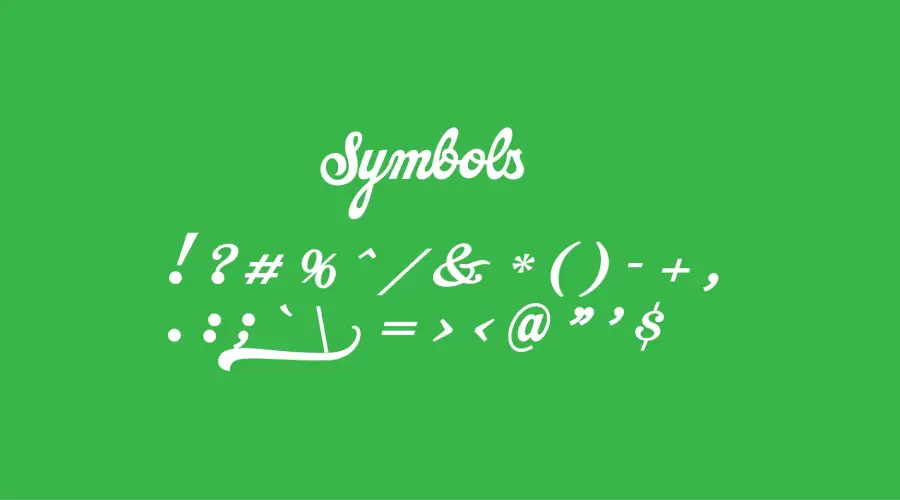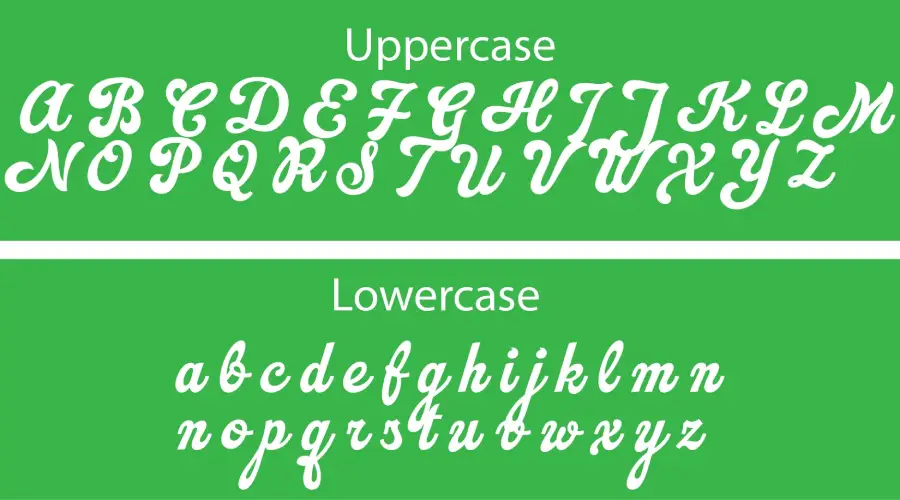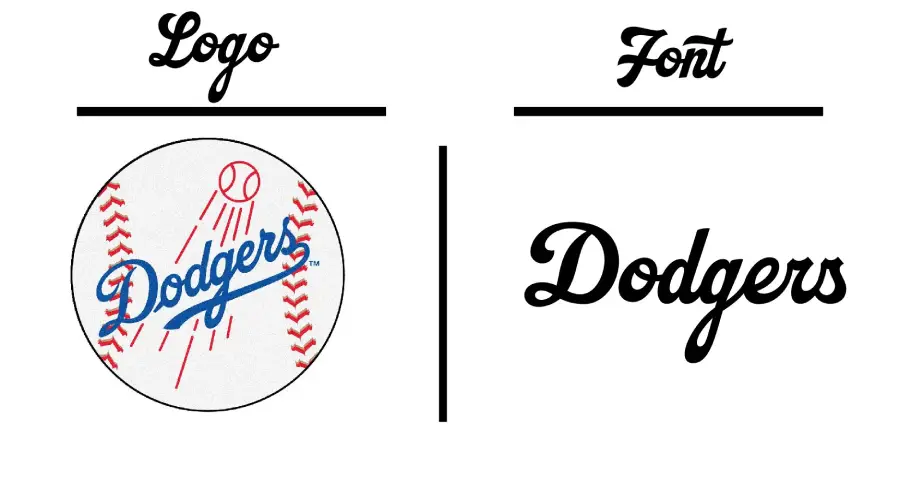
Dodgers Font comes from The Los Angeles Dodgers logo, an American professional baseball team based in Los Angeles. They are competing in Major League Baseball as a member club of the National League West division.
First of all, you have to understand that The Los Angeles Dodgers logo was custom-made. So finding a similar version of the logo lettering is not easy. However, we have researched and found only one font that is very close, like 90% close to The Los Angeles Dodgers logo font lettering. It’s called Nexa Rust Script S 1 by Fontfabric. The main font in Nexa Rust font has a 52 font style on it.
You can use this Dodgers font on your multiple diverse projects. If you are a logo designer, then this font can help you achieve a unique logo style. You can also design banners, posters, and brochures letting with this font.